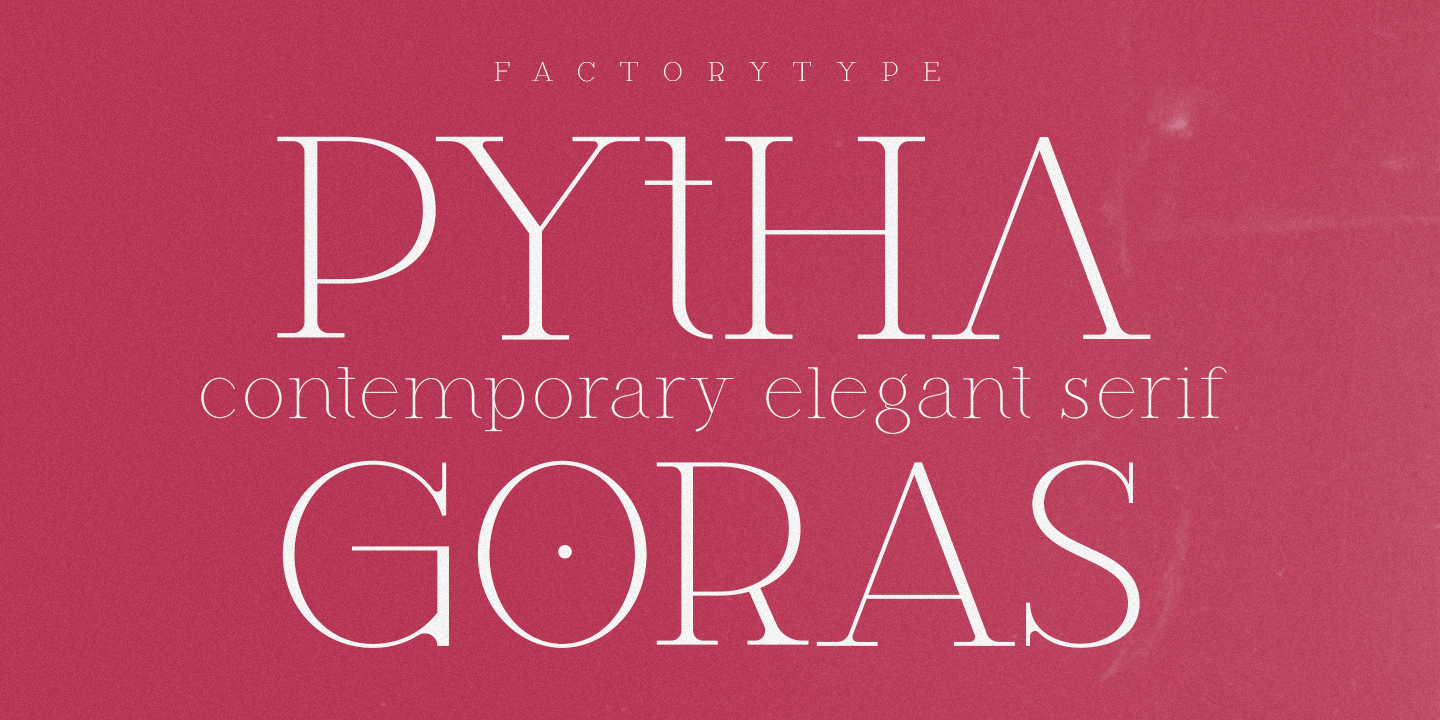
The Pythagoras Font is incredibly versatile, making it perfect for a wide range of design projects. Imagine it gracing the covers of academic journals, adding a touch of sophistication to branding for tech startups, or bringing a clean, modern aesthetic to website interfaces. Its geometric precision also makes it ideal for architectural presentations, infographics, and even minimalist poster designs. Whether you're crafting a new logo, designing a sleek user interface, or creating compelling marketing materials, the Pythagoras Font offers a distinctive visual language.
What makes the Pythagoras Font so exciting is its unique blend of classical elegance and contemporary sharpness. Inspired by the foundational principles of geometry, this typeface embodies balance and harmony, yet it feels entirely fresh and innovative. Its clear lines and well-defined angles ensure excellent readability across various sizes and mediums, from crisp headlines to detailed body text. Designers will appreciate its ability to convey professionalism and creativity simultaneously, making it a powerful tool for visual communication. It avoids the overly decorative or overly simplistic, striking a perfect equilibrium that stands out without being ostentatious. This font truly elevates any design, imbuing it with a sense of thoughtful design and meticulous craftsmanship. The Pythagoras Font Free Download offers an opportunity to experience this exceptional typeface firsthand.
The Pythagoras Font family is designed for maximum flexibility, typically including a range of weights to suit diverse design needs. While the specific family members can vary, you can generally expect to find:
Pythagoras Light
Pythagoras Regular
Pythagoras Medium
Pythagoras SemiBold
Pythagoras Bold
Pythagoras Black
These different weights allow for hierarchical organization within your text and provide ample creative freedom to establish visual interest and impact. The consistent design across all weights ensures a cohesive and polished look, no matter how you utilize them.